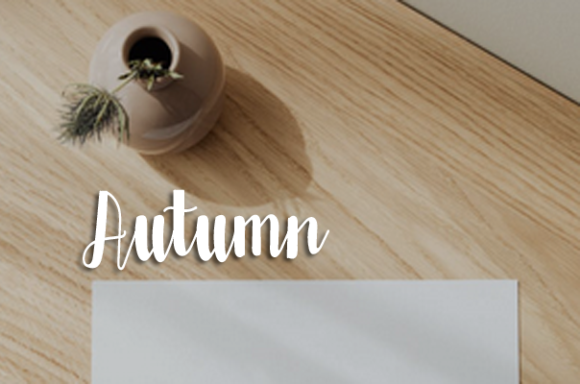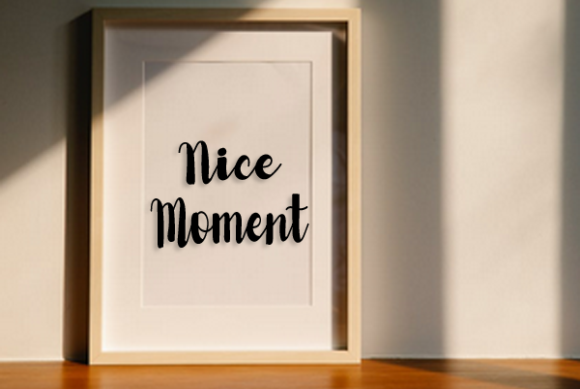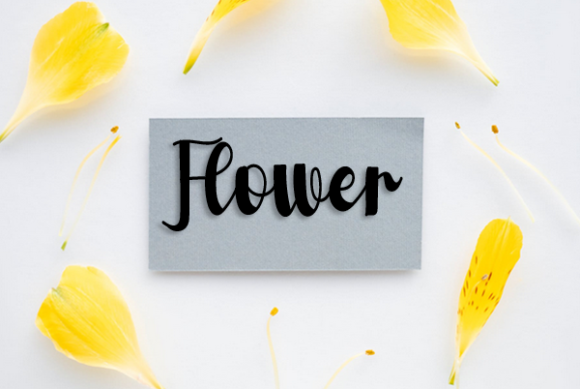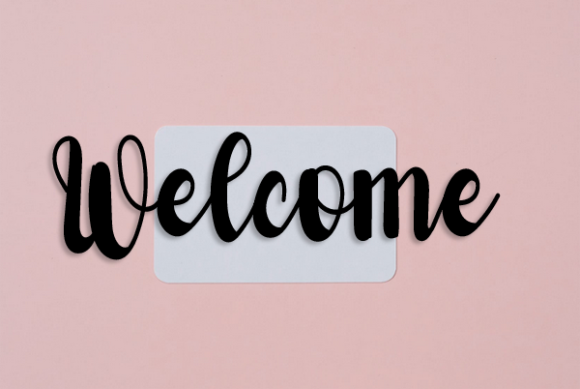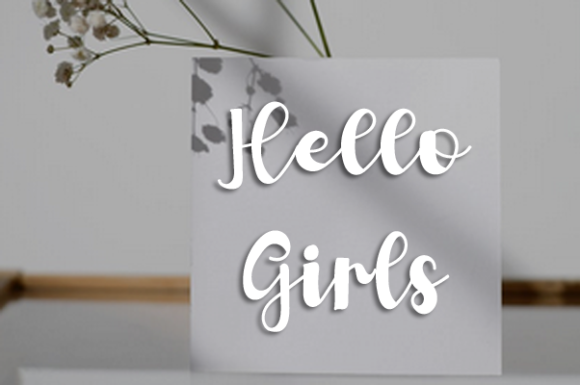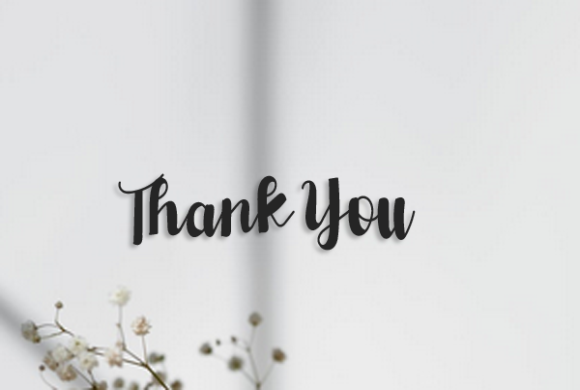
The Quest for Elegance: Discovering Absolute Font
I’ll never forget the time I was working on a wedding invitation project, and my client asked for a font that exuded elegance and class. I scoured the internet, tried out countless fonts, but nothing seemed quite right. That was until I stumbled upon Absolute Font. It was like a breath of fresh air – delicate, lovely, and perfect for adding a touch of sophistication to my design. In this article, I’ll share my experience with Absolute Font, its features, and how to make the most of it in your designs.
An Honest Review of Absolute Font
So, what makes Absolute Font special? Here are a few things I love about it:
• ✨ Elegant and refined: Absolute Font is perfect for designs that require a touch of sophistication.
• ✅ Highly legible: Even at small sizes, Absolute Font remains clear and easy to read.
• 💫 Beautifully crafted: The font’s delicate lines and curves make it a joy to work with.
Of course, no font is perfect, and Absolute Font has a few quirks:
• 🤔 Limited bold weights: If you need a heavy, bold font, Absolute might not be the best choice.
• ⚠️ Some glyphs may not work well in older software: Make sure to check compatibility before using.
The Story Behind Absolute Font
Absolute Font was crafted with love by a team of designers who wanted to create a font that would bring elegance and class to any design. Inspired by traditional calligraphy, they carefully crafted each letterform to ensure a beautiful and refined look. Whether you’re a designer, crafter, or creative hobbyist, Absolute Font is sure to become a favorite.
What is Absolute Font best used for? Absolute Font is perfect for designs that require elegance and class, such as wedding invitations, luxury branding, and high-end advertising.
Is Absolute Font suitable for body text? Yes, Absolute Font is highly legible and can be used for body text, but it’s particularly stunning as a display font.
Does Absolute Font support OpenType features? Yes, Absolute Font supports OpenType features, including glyphs and stylistic alternates.